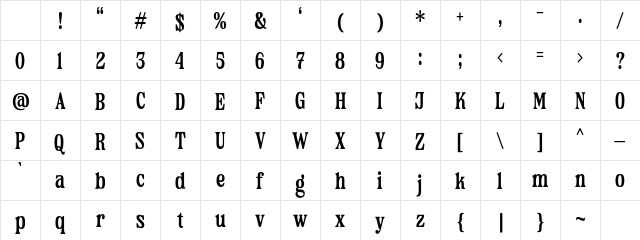
Sunday Romantic Demo is a composed and adaptable typeface that performs quietly and consistently across a wide range of design contexts.
Pro Tip: Use Sunday Romantic Demo in both headline and body roles to test its range before committing to a single application.